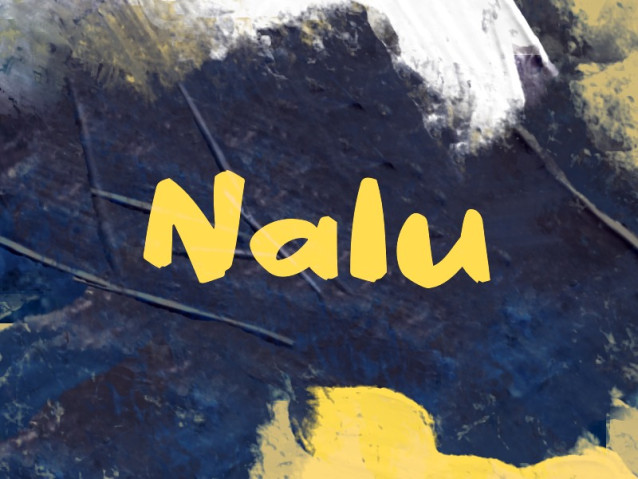
Nalu Font
Nalu Font is a uniquely crafted display font that strikes a perfect balance between organic textures and playful energy. Inspired by hand-carved wood and rustic brushstrokes, this typeface brings a warm, authentic human touch to any creative project.